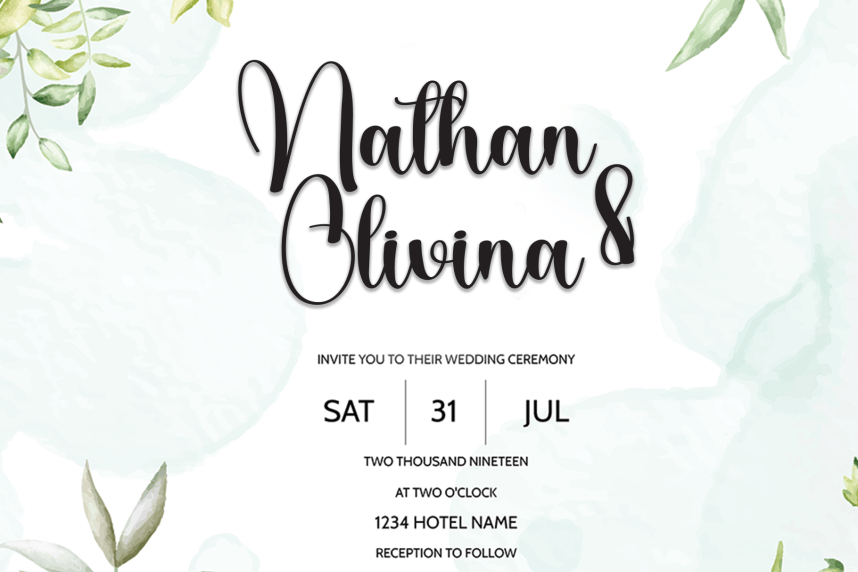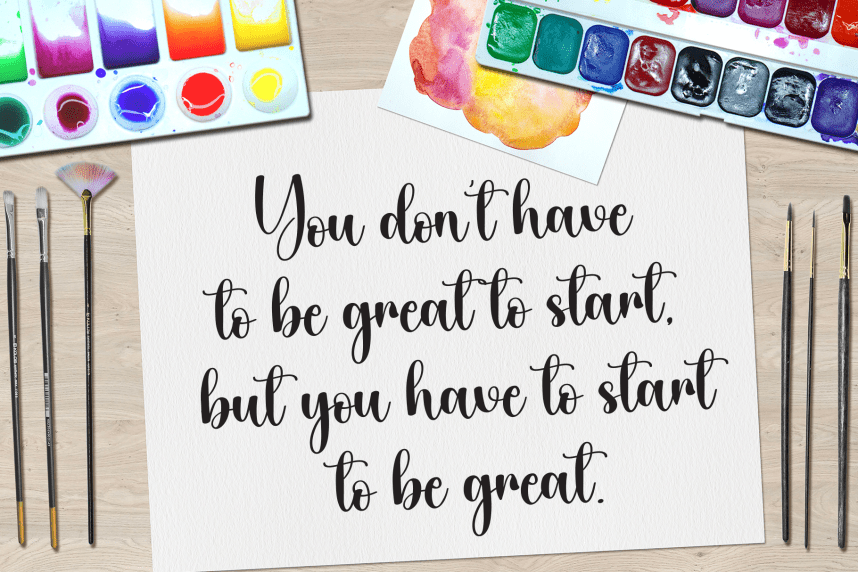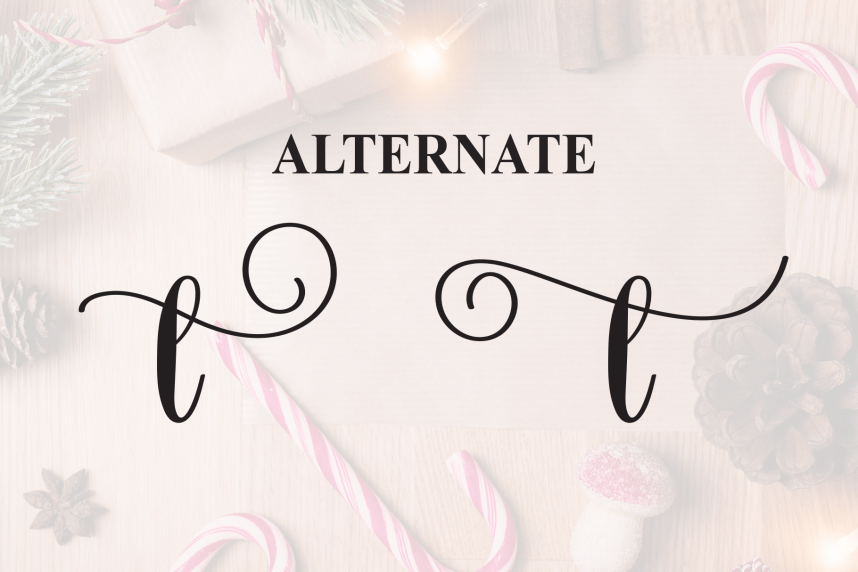
Vintage Christmas – Casual Handwritten Script Font
Vintage Christmas – Casual Handwritten Script Font, special creative products for you, our products will give you an extraordinary experience. the latest style letters are perfect for wall displays, wedding invitations, social media post logos, advertisements, product packaging, product designs, labels, photography, watermarks, invitations, stationery, and any project that requires taste handwriting.